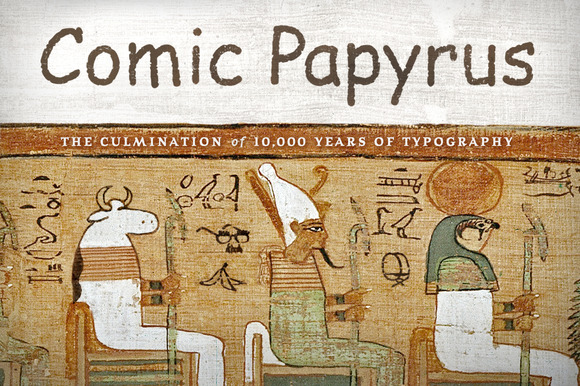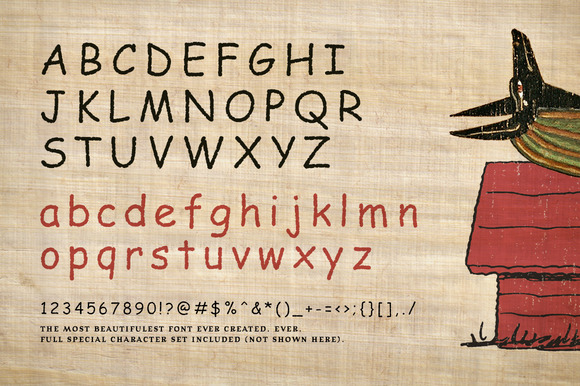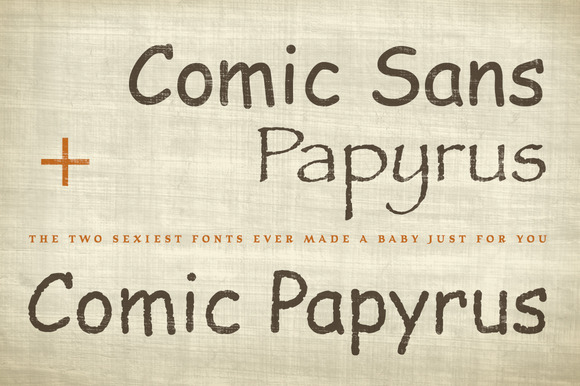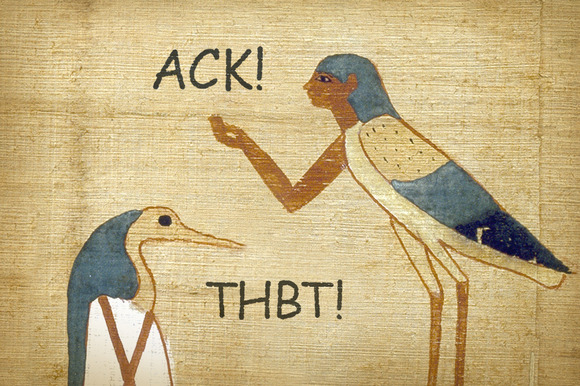
Comic Papyrus Font – FINALLY!
Move over Brangelina. And Bennifer. And Kimye, TomKat*, and Desilu. And sporks. And ligers. EVERYONE MOVE OVER! We’re making room for the world’s first genetically engineered superfont.
Presenting Comic Papyrus. You heard right — COMIC FREAKIN’ PAPYRUS! Your two most favoritest fonts ever have FINALLY been smooshed together typographically, just as Darwin intended. Cross-bred. Cross-awesomified.
So stop wasting hours switching back and forth between your two old favorites, and just use your new favorite instead. Comic Papyrus combines the timeless rustic qualities from centuries past with the hilarious fun-loving wit of today’s funny pages. It’ll make you laugh (like a joke) and cry (like a mummy). Simultaneously!…